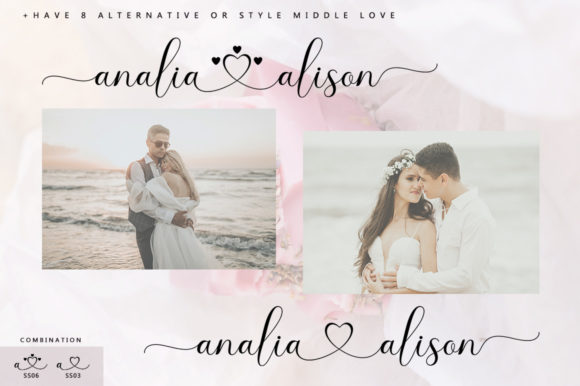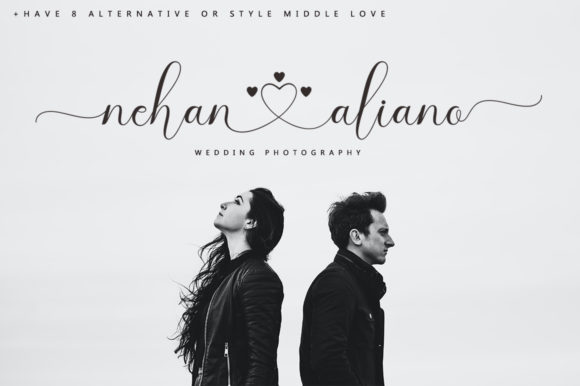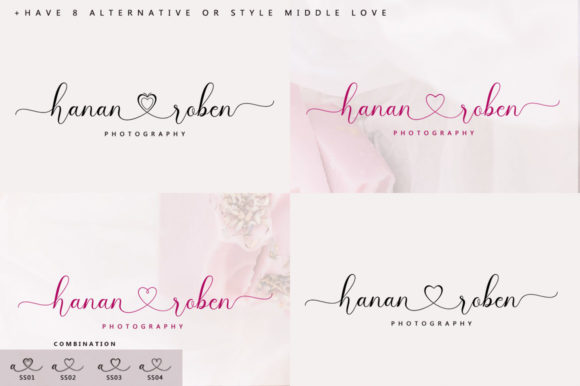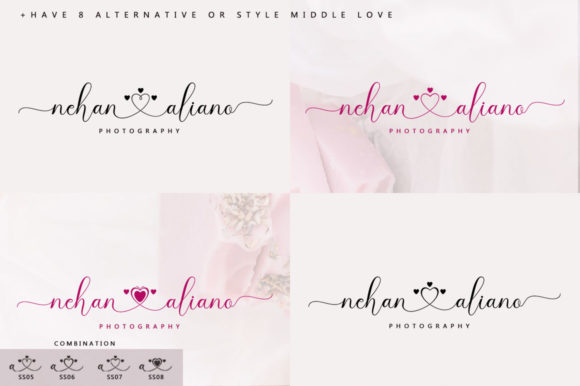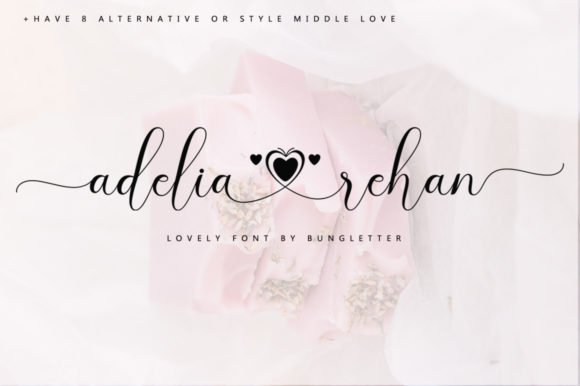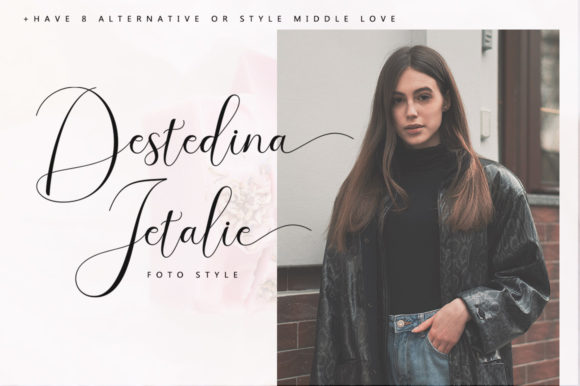
Discover the Elegance of Adelia Rehan Font: A Modern Calligraphy Script
In the realm of typography, few fonts manage to capture the essence of luxury and sophistication as effectively as Adelia Rehan. This modern calligraphy script font has been turning heads with its stunning, hand-crafted design that exudes elegance and refinement. One of the standout features of Adelia Rehan is its beautiful, connected style that seems to flow effortlessly, as if the letters are dancing across the page, connected at the heart. This distinctive characteristic not only sets it apart from other fonts but also makes it a favorite among designers and crafters looking for that special something to elevate their projects.
The Design and Encoding of Adelia Rehan
Adelia Rehan has been designed with meticulous attention to detail, showcasing a high level of craftsmanship that is evident in every stroke and curve. The font’s creator has poured their heart and soul into developing a typeface that not only looks luxurious but also feels premium. This attention to detail is a hallmark of high-quality design and is something that sets Adelia Rehan apart in the world of digital fonts.
Another significant advantage of Adelia Rehan is its PUA (Private Use Area) encoding. For those unfamiliar, PUA encoding allows users to access a wide range of glyphs and ligatures easily. This means that designers and crafters can explore a vast library of additional characters and swashes, enabling them to add even more creativity and uniqueness to their work. The ease of access to these glyphs and ligatures makes Adelia Rehan not only beautiful but also incredibly versatile.
Applications of Adelia Rehan Font
The versatility of Adelia Rehan makes it suitable for a wide array of projects. Whether you’re working on a branding campaign, creating wedding invitations, designing packaging, or crafting digital content, Adelia Rehan can add that touch of sophistication and elegance you’re looking for. Its modern calligraphy style is particularly well-suited for projects that require a personal and luxurious feel.
For designers, Adelia Rehan offers endless possibilities. You can use it to create stunning text compositions, add flair to your designs with its extensive ligatures, or even use it as a basis for creating custom typography. The font’s high level of detail and luxurious appearance make it an excellent choice for any project aiming to convey a sense of premium quality.
Crafters also have much to gain from Adelia Rehan. Whether you’re creating handmade cards, designing custom jewelry, or working on any craft project that involves lettering, this font can inspire your creativity. The ability to access a wide range of glyphs and ligatures through PUA encoding means you can experiment with different styles and effects, making each of your creations truly unique.
Why Choose Adelia Rehan?
There are several reasons why Adelia Rehan stands out in the crowded world of digital fonts:
- Unique and Luxurious Style: Its connected, calligraphy script offers a fresh alternative to more traditional fonts.
- High Detail: The font’s design showcases a high level of craftsmanship, making it perfect for projects where quality matters.
- PUA Encoded: Easy access to a wide range of glyphs and ligatures for added creativity.
- Versatility: Suitable for a variety of projects, from digital content to print materials.
Adelia Rehan is more than just a font; it’s a tool for creativity and self-expression. Its unique blend of modern calligraphy and luxurious design makes it an invaluable resource for designers and crafters alike. Whether you’re looking to add a touch of elegance to your projects or seeking inspiration for your next creative endeavor, Adelia Rehan is definitely worth exploring. With its beautiful, connected style and extensive range of glyphs and ligatures, this font is poised to become a favorite among those who value quality, creativity, and sophistication.